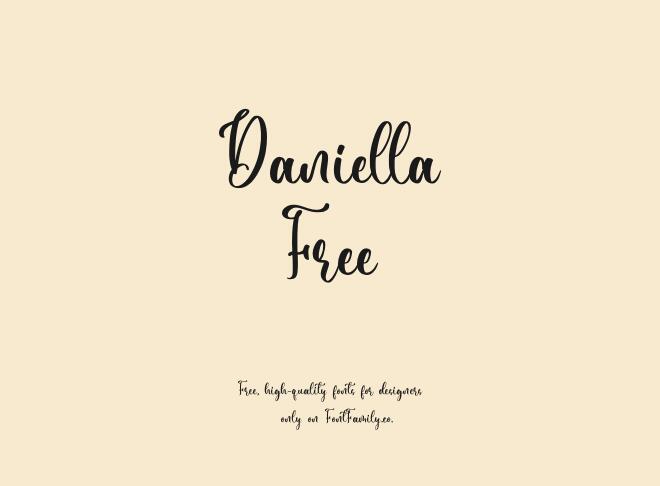
Daniella Free Font
Daniella Free Font is a modern and minimalistic handwritten typeface, designed by Creative Fabrica Fonts. With its clean and elegant lines, it effortlessly adds a touch of sophistication to any design project. This versatile font is ideal for branding, wedding invitations, book covers, and stationery. Its slight slant and smooth curves mimic natural handwriting, making it feel personal and intimate. Compared to other handwritten fonts, Daniella stands out for its readability and unique character styling. While it's modern and minimalistic, it still retains a touch of classic handwriting charm. Being free for personal use, Daniella Free Font is a great choice for designers looking to add a dash of elegance to their work.